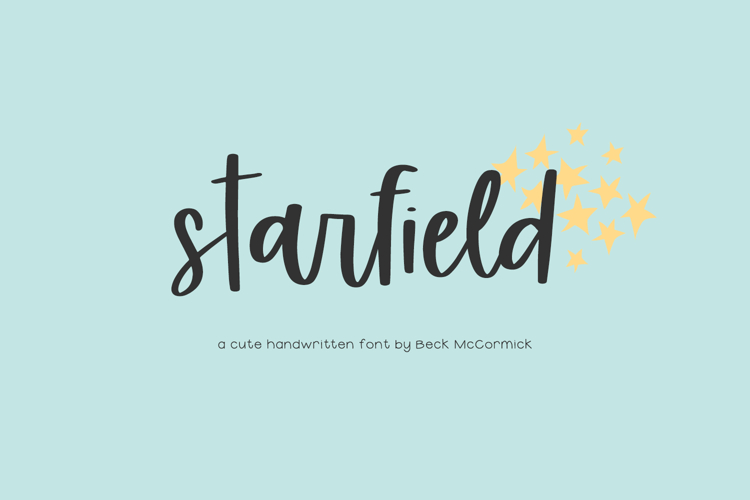
Starfield Script
Introducing Starfield, a neat & tidy modern script. Starfield features 35 ligatures to enhance the handwritten look & feel of your project, while still remaining clean & legible.
Starfield is best for:
- feminine, crafty projects with your Cricut or Silhouette machine, or your SVG design business
- farmhouse decor and crafts
- digital planners & apps like Goodnotes
- website design + website accents, blog design
- feminine graphic tee shirt design & other apparel
- 2 alternates - m, n
- 35 ligatures - ar, as, bb, br, bs, cr, cs, dd, dr, ds, er, es, ff, fr, fs, gr, gs, ir, is, ll, mm, nn, oo, or, os, pr, ps, rr, rs, ss, tr, ts, tt, ur, us